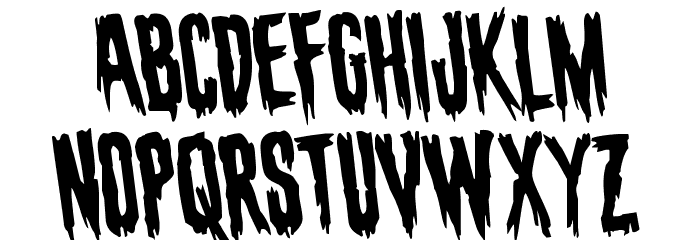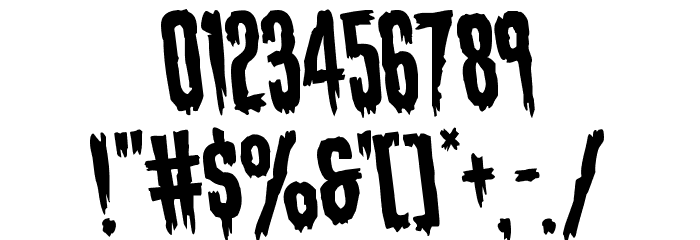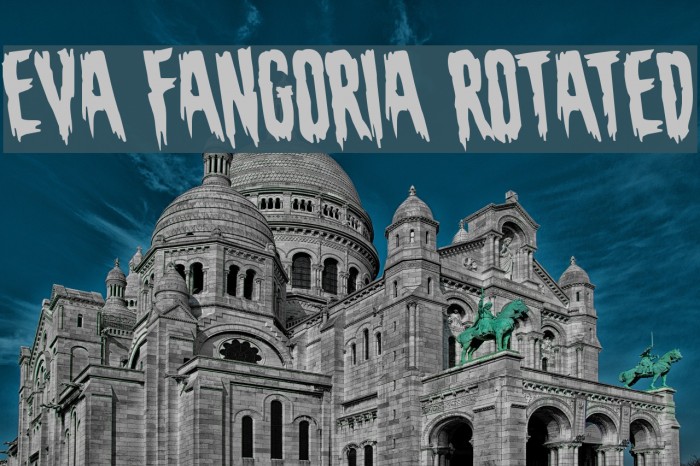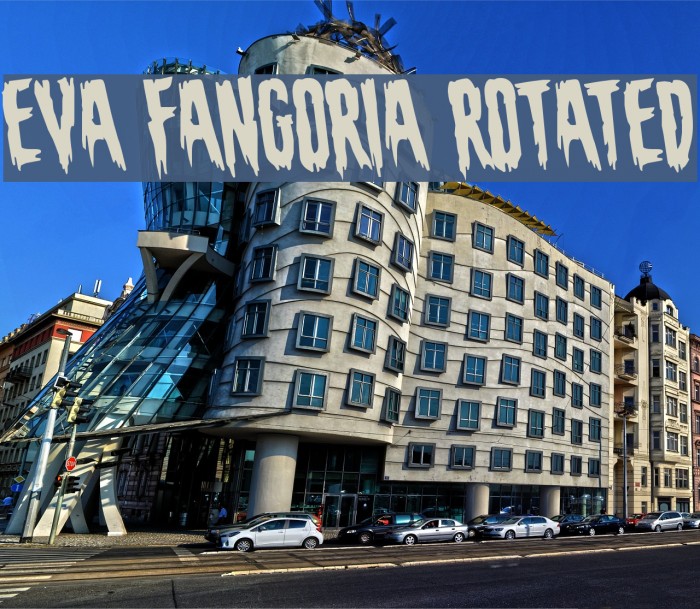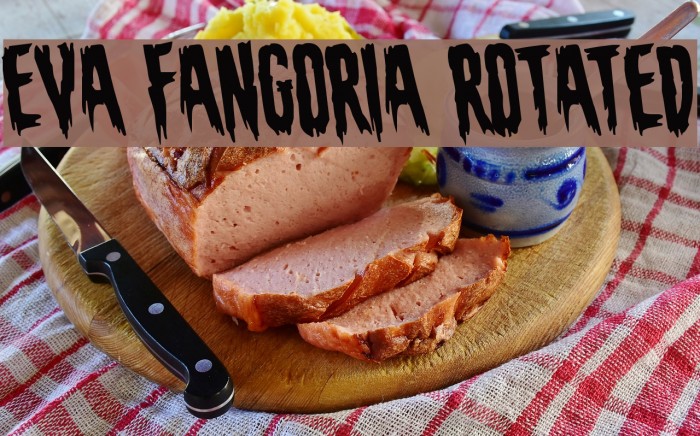
Eva Fangoria Rotated Font
This font features a bold, jagged style that evokes a sense of horror and drama. The characters have irregular edges, resembling torn paper or claw marks, which gives it a raw and edgy appearance. The uppercase and lowercase letters maintain a consistent height, contributing to a uniform look despite the chaotic design. Numbers and special characters follow the same aesthetic, ensuring a cohesive visual experience. The font's unique style makes it ideal for projects that require a strong, impactful presence.
A bold, jagged font with a horror-inspired, dramatic style.
- Proposed Projects: Ideal for horror movie posters, Halloween event flyers, edgy album covers, and themed party invitations.